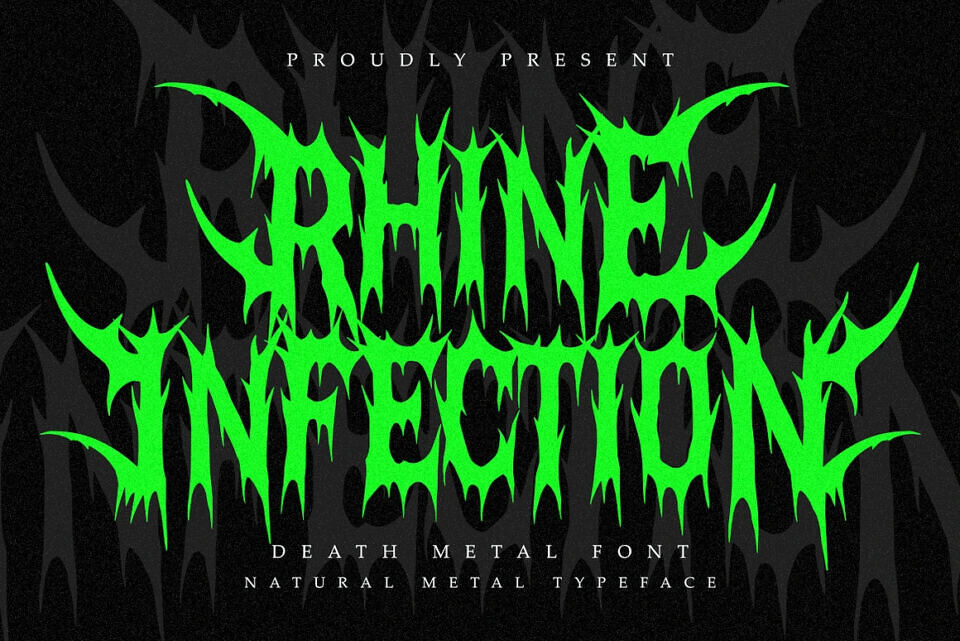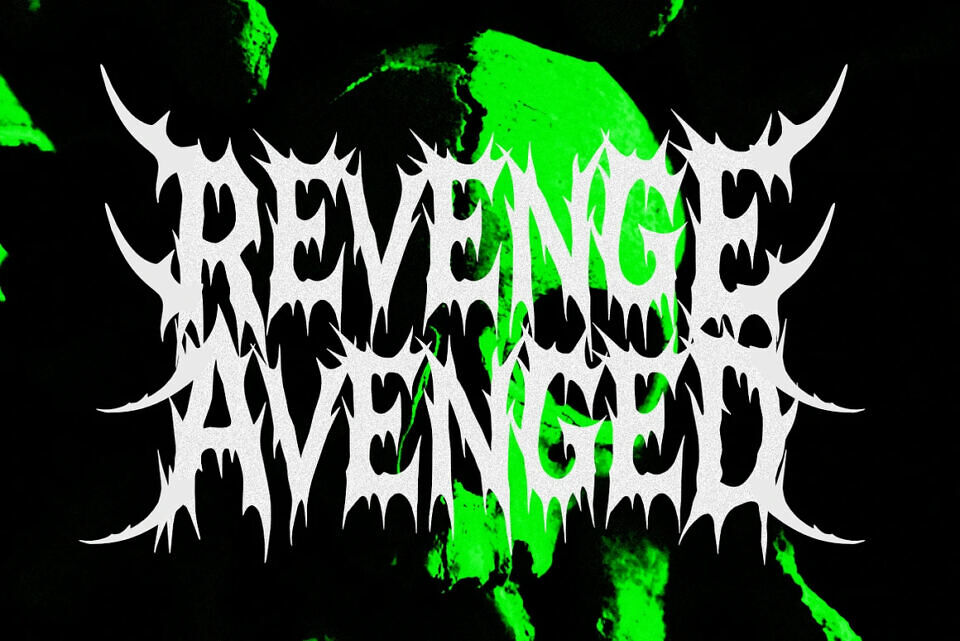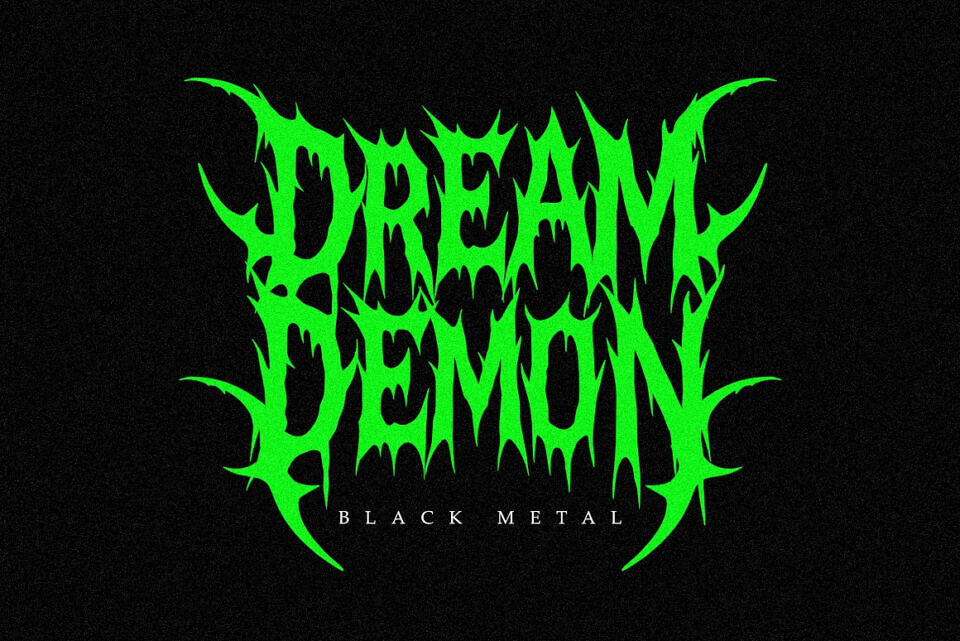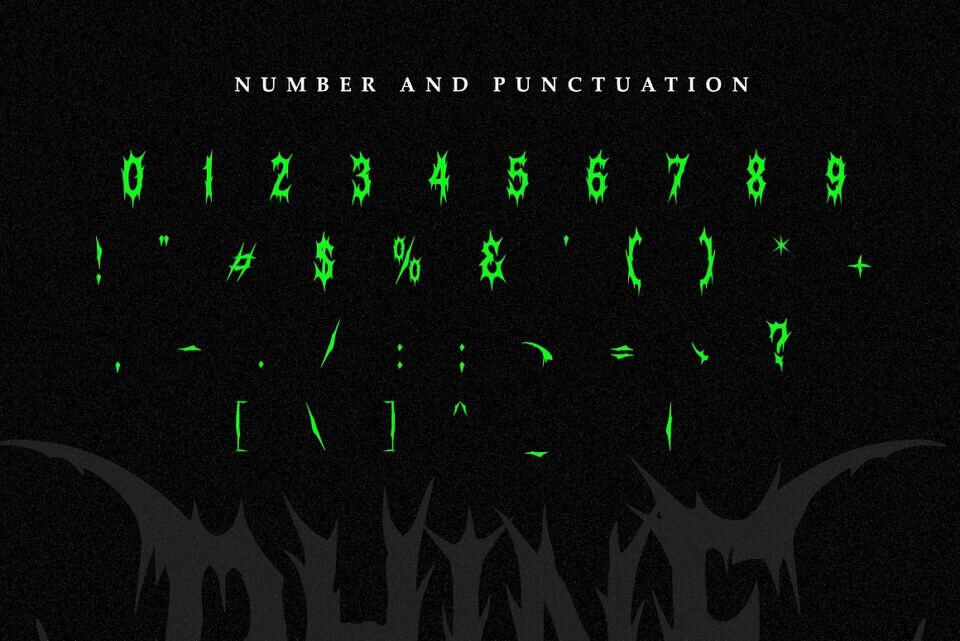
Rhine Infection Font
Rhine Infection is a brutal death metal font inspired by extreme music culture, underground visuals, and dark graphic aesthetics. Featuring sharp edges, dripping forms, and aggressive letter structures, this typeface delivers a raw and intense visual impact.
This font is designed for projects that demand a bold and extreme character, making it ideal for metal and hardcore music design, band logos, posters, event promotions, album covers, and dark-themed visual designs. Its handcrafted metal style creates a strong identity that stands out instantly.